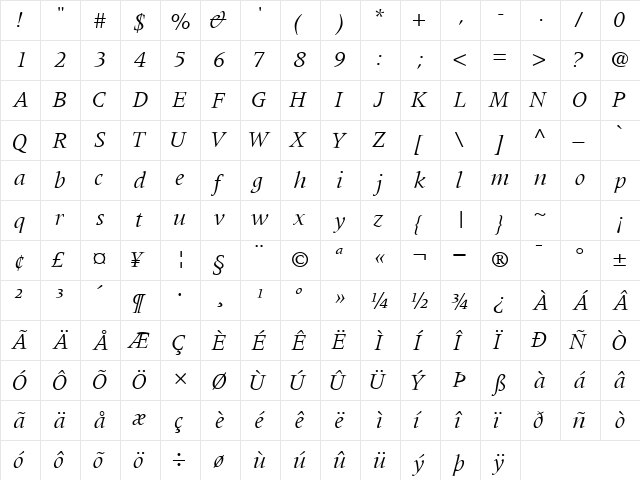
CoherentSSK Italic
Design Context for CoherentSSK Typeface
CoherentSSK offers clean, dependable letterforms without strong stylistic allegiance, making it a practical choice for designers who need flexibility. The dynamic lean of this cut emphasises speed and emphasis in any layout.
Pro Tip: Try CoherentSSK for annotation and caption copy alongside an upright companion — the contrast in angle creates a dynamic but ordered typographic system.